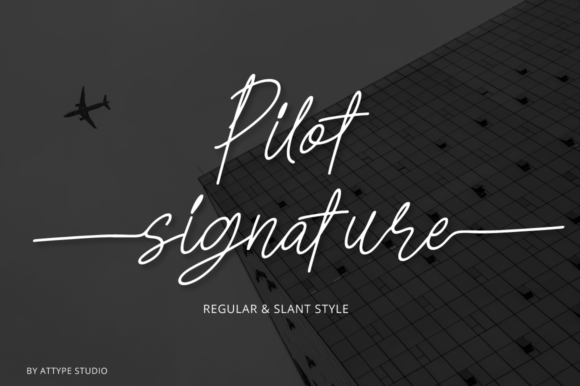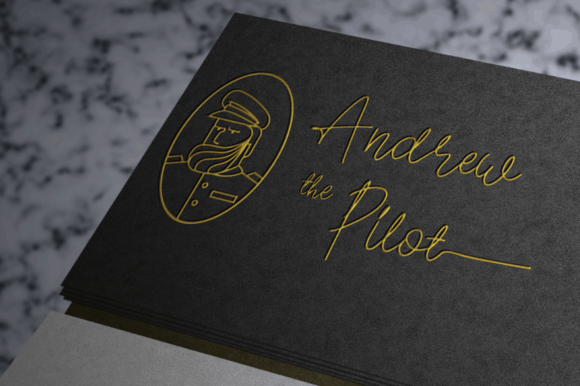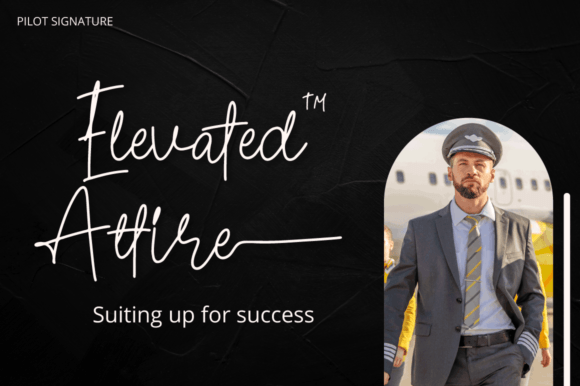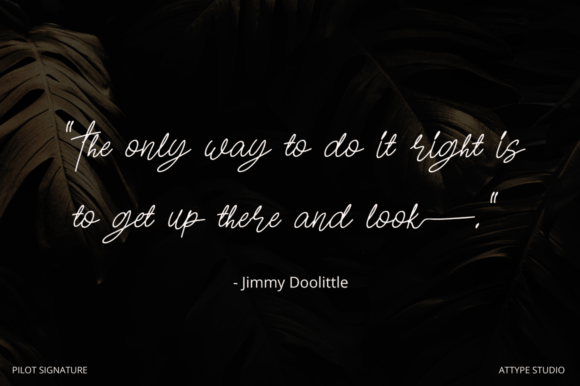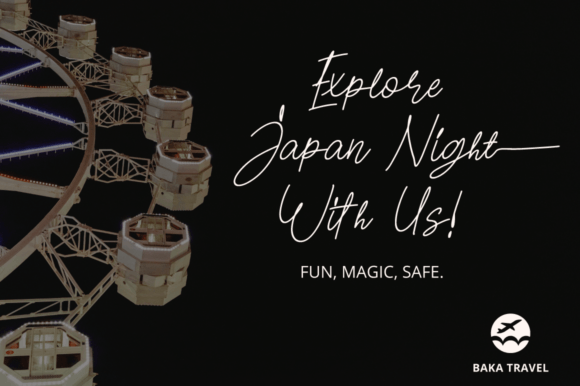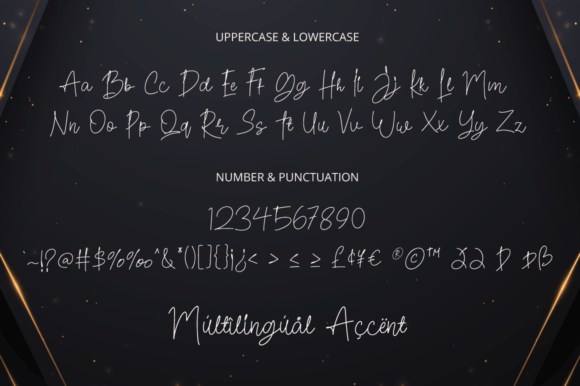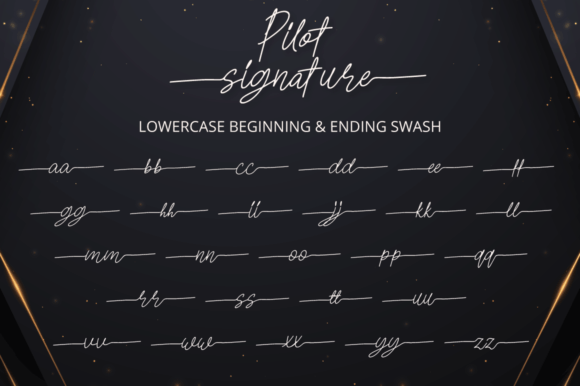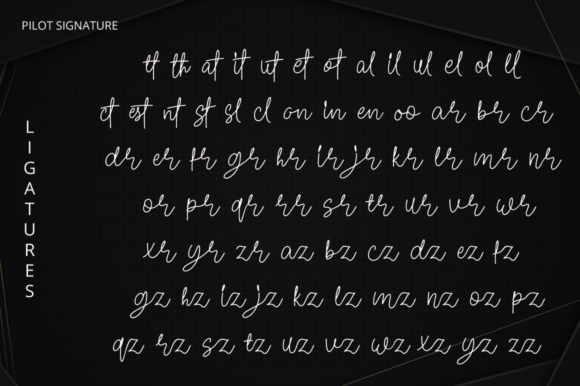
Pilot Signature Font
About Pilot Signature Font
Pilot Signature Font is a stunning and elegant signature script typeface crafted to bring a personal and sophisticated flair to your creative projects. It features a wide array of unique ligatures and swashes, enhancing the flow and beauty of the letterforms. This font is perfect for logos, branding, invitations, and any design that benefits from a refined handwritten look.
Elegant and Flowing Script Design
Pilot Signature boasts smooth, flowing strokes and carefully crafted letterforms that mimic the natural movement of handwriting. The inclusion of distinctive ligatures and swashes allows for stylish variations, adding uniqueness and grace to your work.
Ideal Uses for Pilot Signature Font
This versatile font is perfect for:
• Personal and professional logos
• Branding and identity projects
• Wedding and event invitations
• Signature styles for documents or artworks
• Social media graphics and marketing materials
Pilot Signature elevates your designs with elegance and personality.
Why Choose Pilot Signature Font?
Designers value Pilot Signature for its:
• Elegant and flowing handwritten style
• Extensive set of unique ligatures and swashes
• Versatility across various design platforms
These features make Pilot Signature both practical and visually stunning.
Add a Personal and Elegant Touch to Your Designs
Typography significantly impacts the tone of your projects. Pilot Signature adds a personal, graceful touch that helps your designs connect deeply with audiences. Whether for branding, invitations, or digital content, this font enhances your creative expression.
In summary, Pilot Signature Font is a beautiful and elegant script perfect for designers seeking a unique and flowing handwritten font. Add Pilot Signature to your font collection to create personalized and memorable designs.